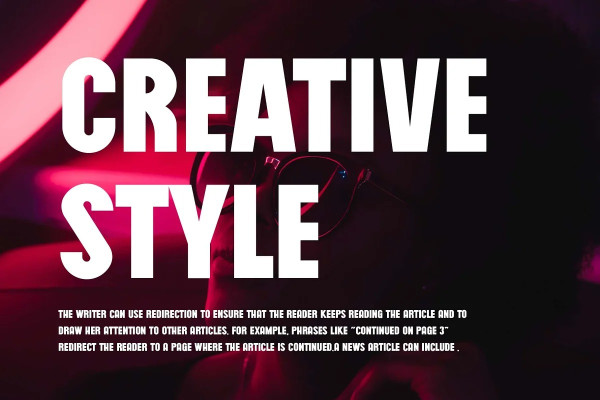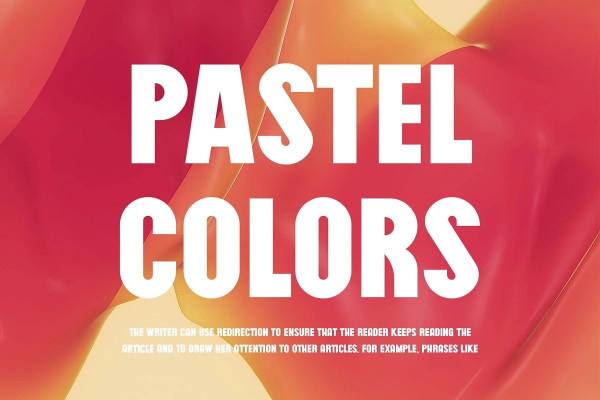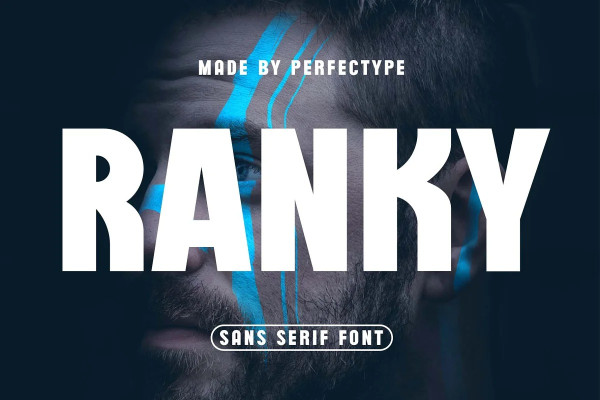
Ranky Font
Ranky Font – Modern Sans Serif Font inspired by the famous minimalist logo perfect for the purposes of designing templates, brochures, videos, advertising branding, logos, invitation, layout design, elegant crafting, beauty design and other